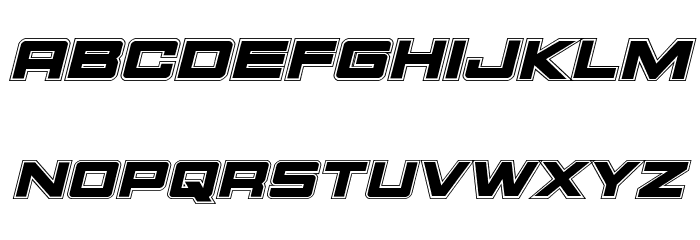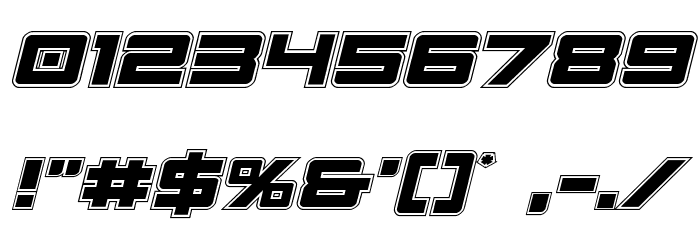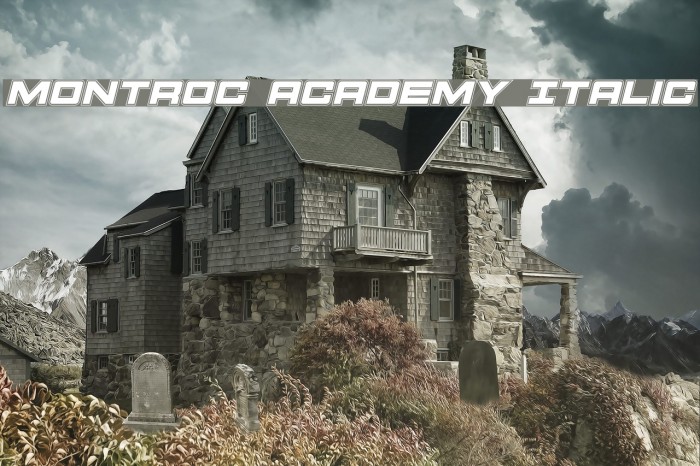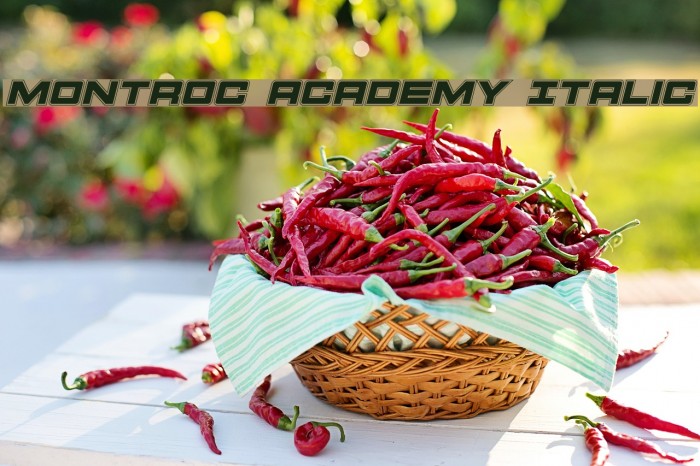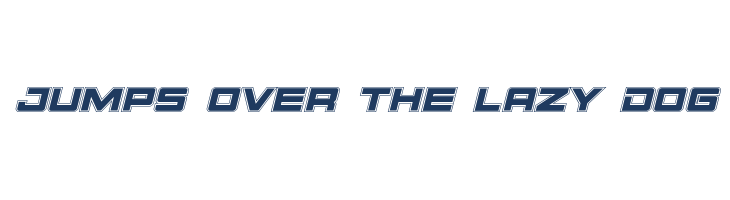
Montroc Academy Italic Font
This font features a bold, italicized style with a distinct modern flair. The characters are outlined, giving them a three-dimensional effect that adds depth and visual interest. The uppercase letters are prominently displayed, with sharp angles and clean lines that convey a sense of strength and stability. The numerals and special characters maintain the same boldness and clarity, ensuring consistency across all elements. This font's unique design makes it stand out, ideal for projects that require a strong visual impact.
A bold, italicized font with a modern, outlined style.
- Proposed Projects: Ideal for sports branding, dynamic posters, video game titles, and futuristic designs.